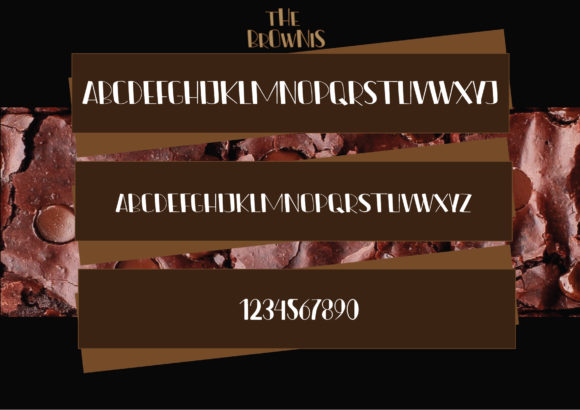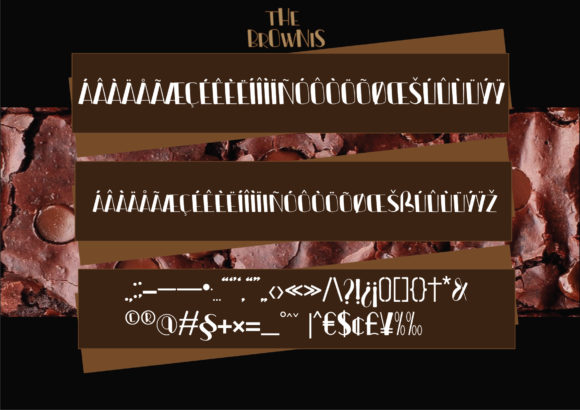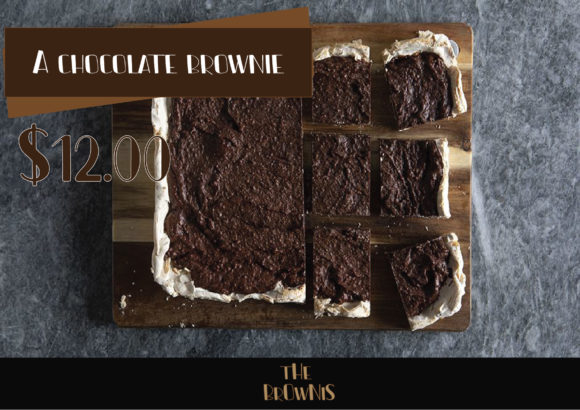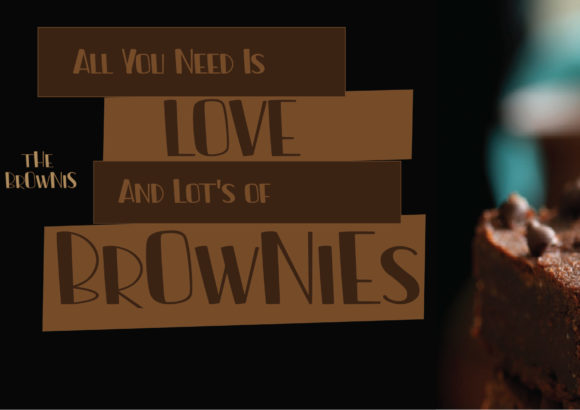
The Brownis Font
About The Brownis Font
The Brownis is a great handwritten font. It will elevate a wide range of design projects to the highest level, be it branding, headings, wedding designs, invitations, signatures, logos, labels, and much more!